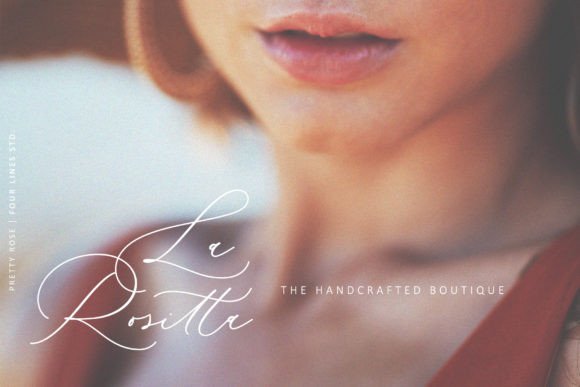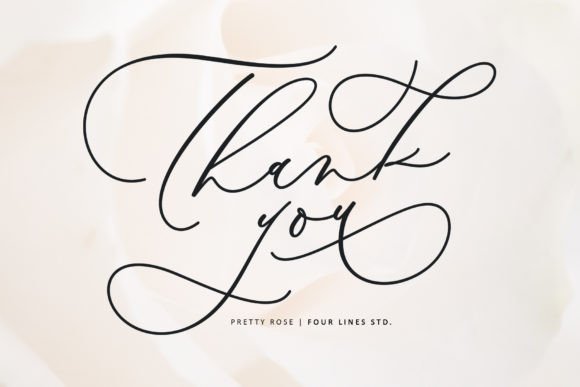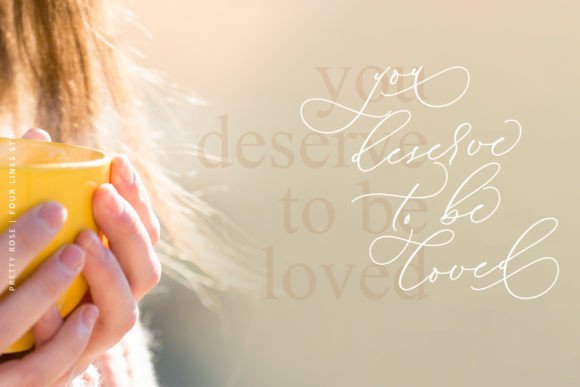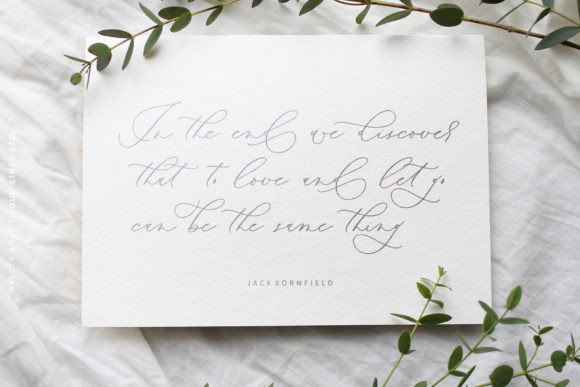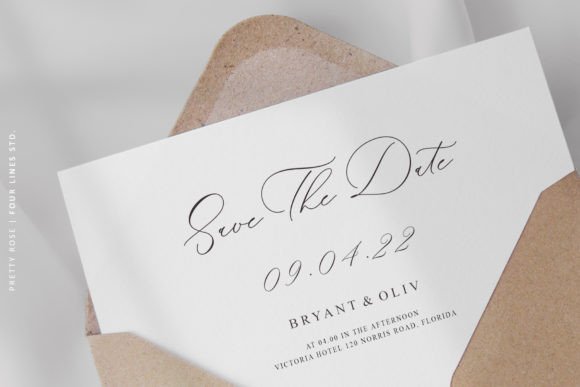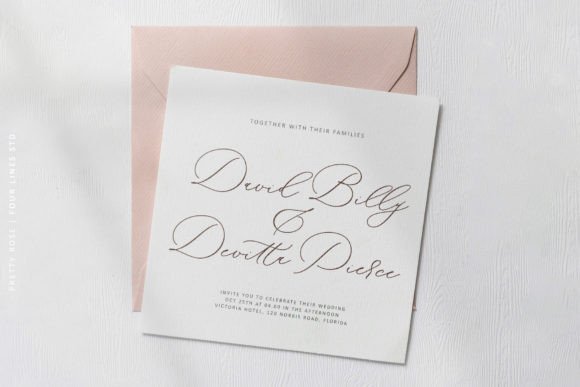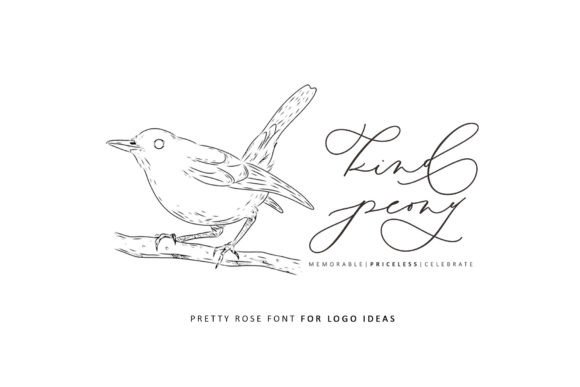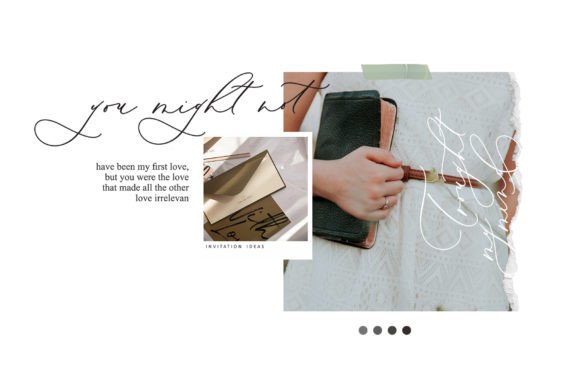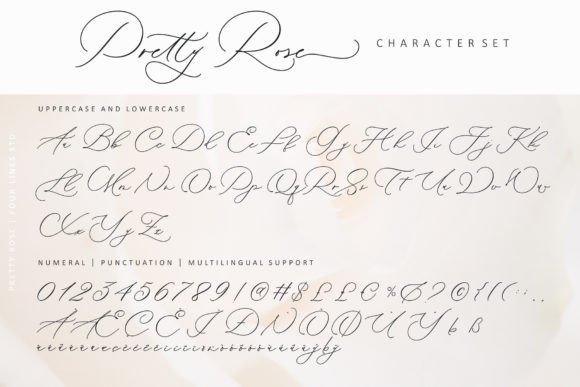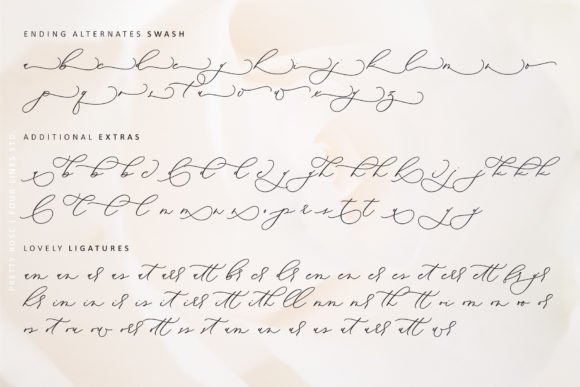
Pretty Rose Font
About Pretty Rose Font
Introducing “Pretty Rose,” a sweet and delicate handwritten font designed to add a touch of charm to your creative projects. With its varying baseline, smooth lines, gorgeous glyphs, and stunning alternates, “Pretty Rose” is a font that invites you to fall in love with its incredibly versatile style. Use it to create spectacular designs that captivate and inspire!
Picture “Pretty Rose” gracing your designs with its delicate and charming handwritten style. Whether you’re working on invitations, greeting cards, branding materials, or any project that requires a touch of sweetness, this font is crafted to elevate your creations. The varying baseline and smooth lines contribute to its overall elegance.
The versatility of “Pretty Rose” shines through, making it suitable for a range of applications in both digital and print design. Its stunning alternates provide creative options, allowing you to customize and personalize your projects effortlessly.
Explore the delightful possibilities that “Pretty Rose” brings to your design toolkit. Let it be the font that enhances the visual appeal of your creations and adds a sweet, delicate touch to your artistic endeavors.